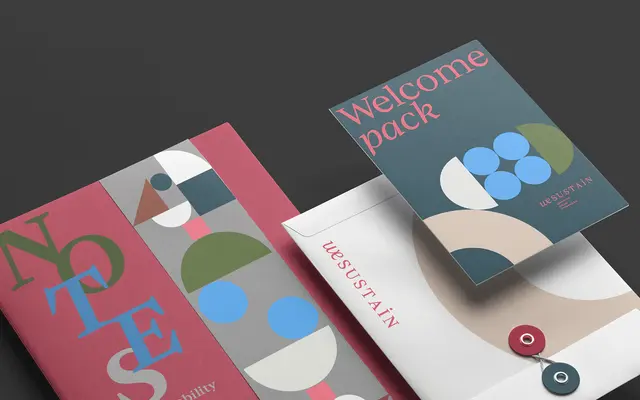
Baghira
A contemporary serif by Christian Gruber with wedge-shaped serifs and true italics, suited to editorial, book and corporate work across print and screen.
Baghira carries smoothly drawn curves, precisely placed corners and rectangular dots, with no historical model as its reference. Its wedge serifs create a horizontal drive in running text without drawing attention to themselves, making it practical across body copy and headline sizes. Eight fonts across four weights with matching italics, small caps, multiple figure sets and discretionary ligatures give it sufficient range for single-typeface brand systems.
A contemporary serif with wedge-shaped serifs and true italics that allude to calligraphic roots, but deliberately avoids historical models, placing it in the contemporary rather than transitional or old-style category.